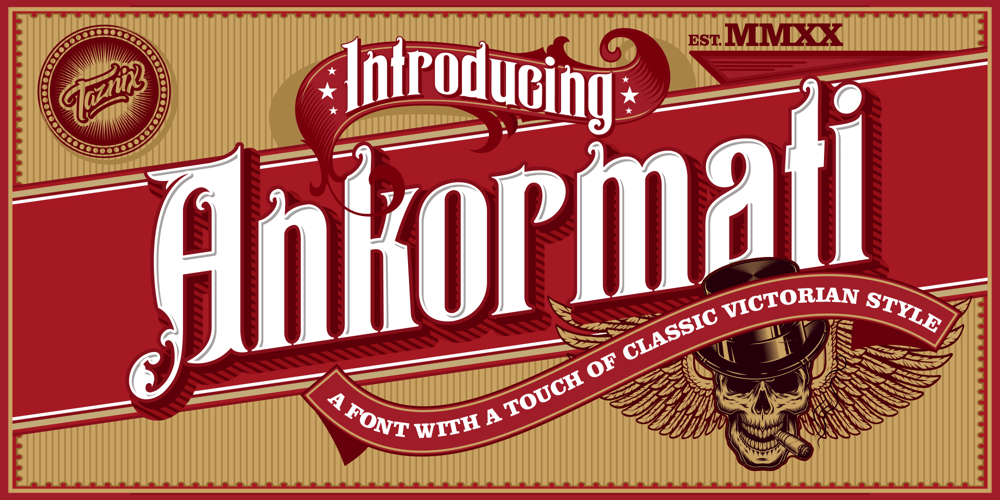
Ankormati Font Family was designed by Ricky Hartasni and published by Taznix Creative. Ankormati contains 1 styles and family package options. Ankormati Is a font with a touch of classic Victorian era style with bold letters wrapped in small ornaments that add to the feel of the Victorian era, but here it makes the look of this font with a colorful retro feel, not really like the old Victorian era design. But this can be tailored to the desires of your design needs, This font fits perfectly with the retro vintage style which will add classic value to your designs.What’s Included : Standard glyphs Ligature Works on PC & Mac Simple installations Accessible in the Adobe Illustrator, Adobe Photoshop, Adobe InDesign, even work on Microsoft Word. PUA Encoded Characters – Fully accessible without additional design software. Fonts include multilingual support for; ä ö ü Ä Ö Ü ß ¿ ¡ Hope you enjoy with our font!Taznix